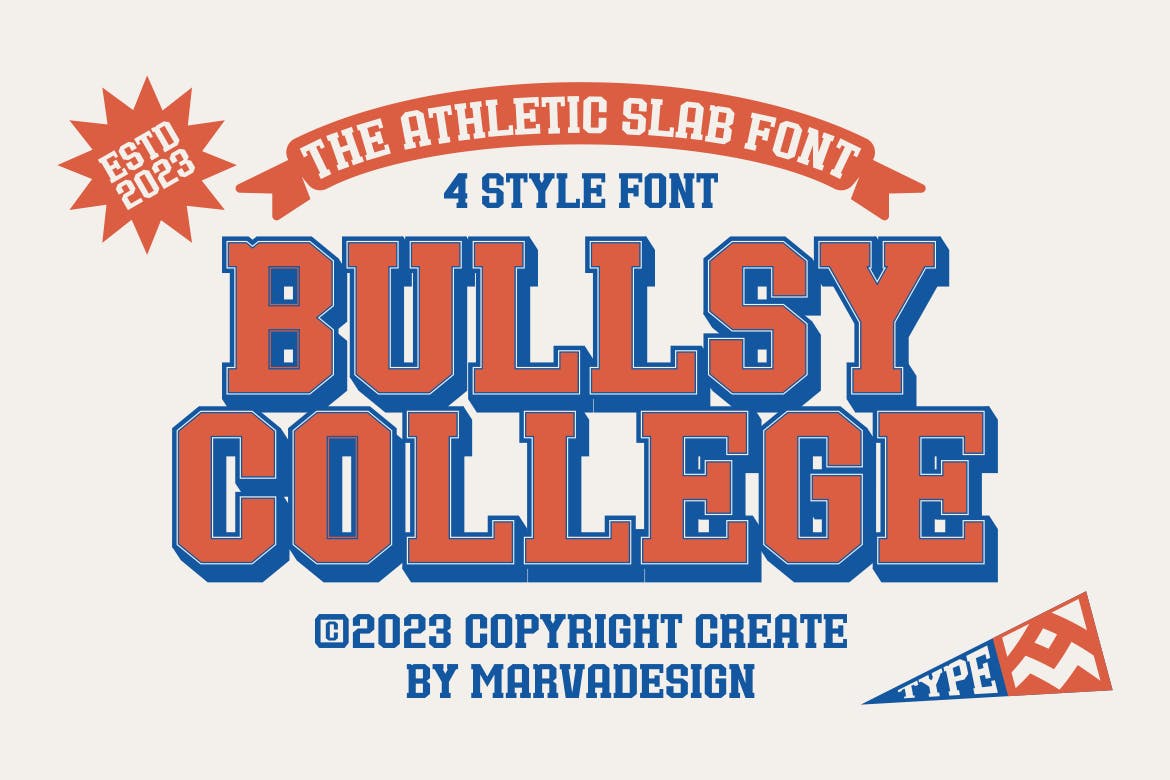
20+ Best Varsity Fonts for Athletic & College Designs
Delve into the realm of athleticism and academia with this exclusive collection of 25+ best varsity fonts. This assemblage is intricately designed to cater to anyone working on projects inclined towards US college themes, sports, and varsity events. It not only mirrors the indomitable spirit of such establishments but also depicts the essence of age-old traditions and community spirit that they consistently uphold.
These literary masterpieces are available in a blend of both paid and free versions, offering designers the flexibility to choose based on their preferences and project requisites. Each of these fonts is carefully selected, embodying the unique aesthetic that is universally associated with varsity events and themes. They not only enhance the visual appeal of your designs but also lend them a touch of authenticity and realism.
The delicate fusion of classic and contemporary styles in these fonts makes them perfect for a wide range of applications. Regardless of whether you’re designing a sportswear logo, creating an alumni souvenir, or crafting college event posters, you’ll find the finest and most expansive range of varsity fonts right here. Unleash your creativity and let your designs narrative the vivacious varsity spirit.
Wildcat Varsity Sport Typeface
Wildcat Varsity Sport Typeface is an ideal font choice to invigorate your sports-related projects. With its dynamic, athletic feel, it’s perfect for designing logos, posters, sports-kit branding, headlines, or magazine layouts. From basketball to hockey, this typeface helps create a compelling visual impact, giving your designs a bold, powerful look.
Sporty Varsity Stencil Font
Sportfield Varsity Athletic Font
Sportfield Varsity Athletic Font is an ideal choice for sporting and athletic designs. With strong, angular letters, it imbues a sense of power and motion, perfect for impactful logos and headlines. It comes with numbers, punctuation, multilingual support, and is PUA encoded. This third-party creative asset can truly ramp up your sports-related graphics.
Radley Urban Display Font
Camphound Typeface
College Font Family
Teamlead Varsity Font
Marlivane Slab Serif
Rasioline Typeface
Flanders Script Typeface
Flanders Script Typeface is a boldly modern choice that brilliantly meets design needs for sporty themes, logos, quotes, wordmarks, and more. Its expansive opentype features include ligatures, stylistic alternates, contextual alternates, and swashes, all while supporting multiple languages, making it a versatile and dynamic addition to any creative project.